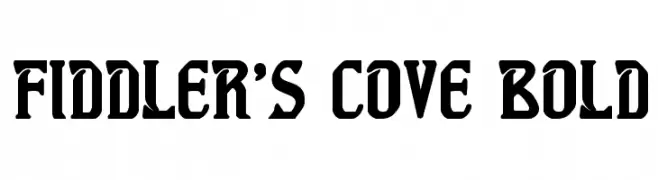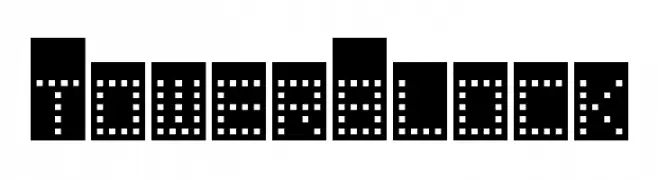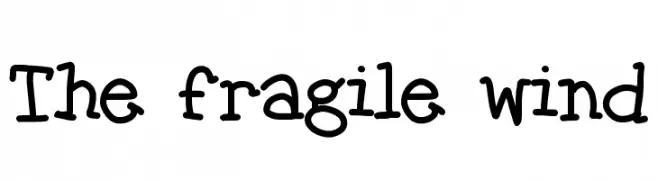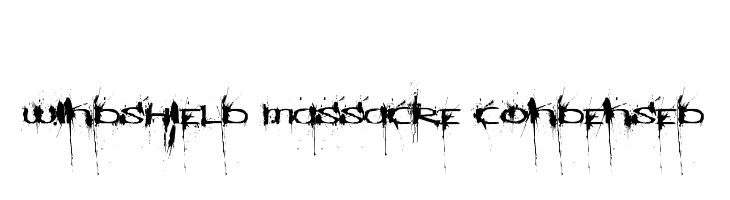
A bold blackletter font with a medieval and authoritative style.
A bold, playful font with thick, rounded characters and a bubbly appearance.
A bold, 3D geometric font with uppercase letters in cube-like structures.
A digital, dot-matrix style font with a modern and futuristic look.
A bold, edgy font with irregular, blocky letterforms and a rebellious style.
A playful, handwritten font with a whimsical and casual style.
A bold, jagged font with dripping edges, ideal for horror themes.
A playful, cat-themed font with whimsical elements and bold, friendly characters.